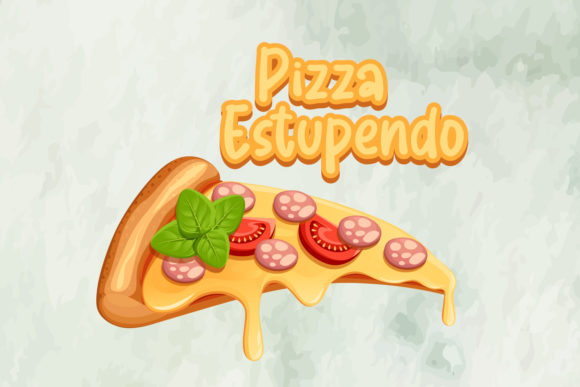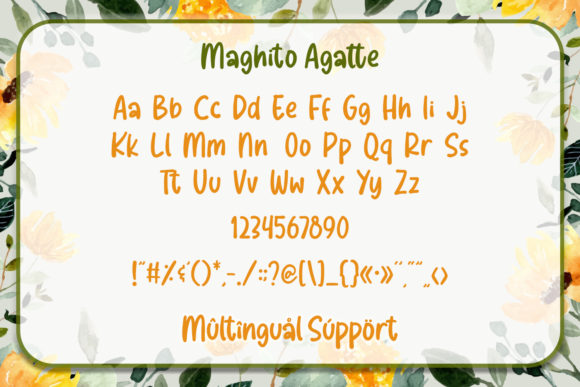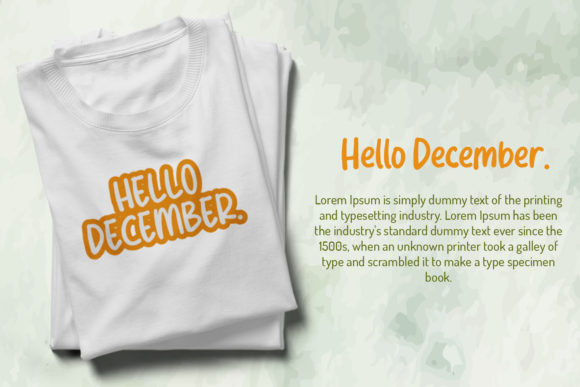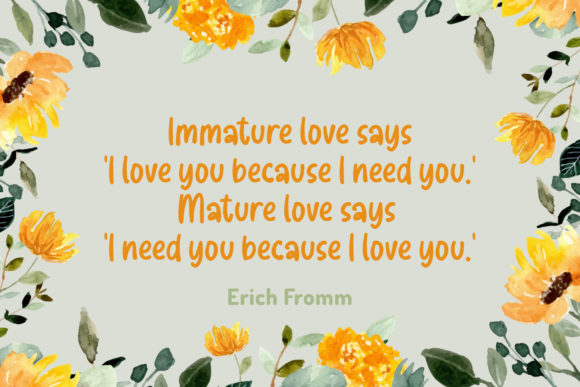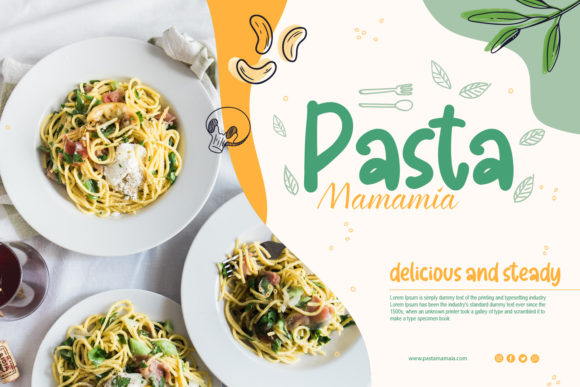
Introduction to Maghito Agatte Font
Maghito Agatte embodies fun, quirkiness and authenticity.
This enchanting handwritten font will turn any creative idea into a true standout Add it confidently to your projects, and you wonโt be disappointed.
Key Features of Maghito Agatte Font
Why Choose Maghito Agatte Font?
Maghito Agatte Font offers exceptional quality and versatility, making it a valuable addition to your design toolkit. Whether you’re creating for personal projects or commercial use, Maghito Agatte Font delivers professional results.